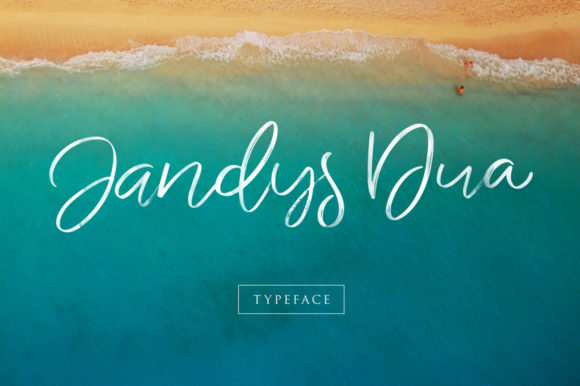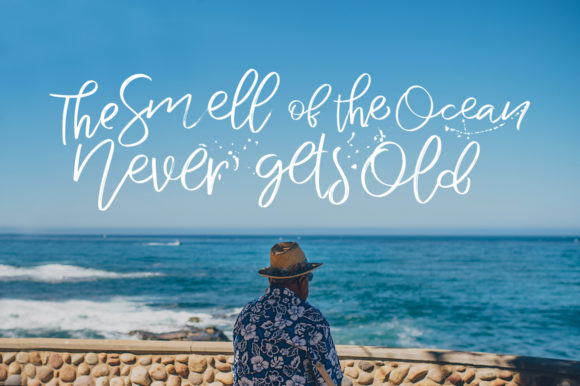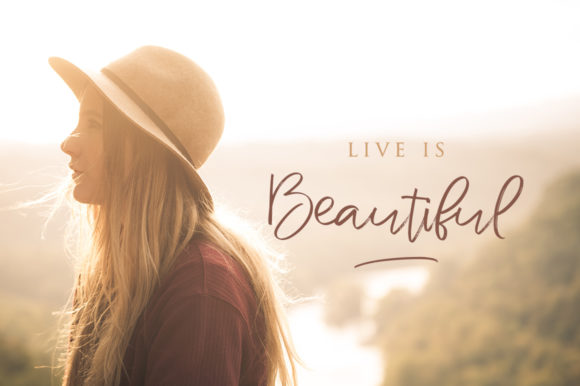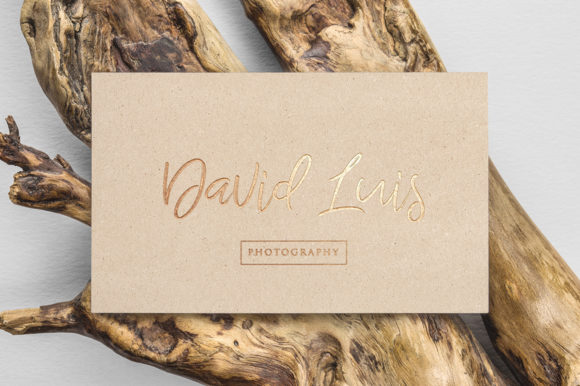
Jandys Font
About Jandys Font
Jandys has a smooth and simple style. It’s a very delicate and unique font that will add a casual feel to any design idea!